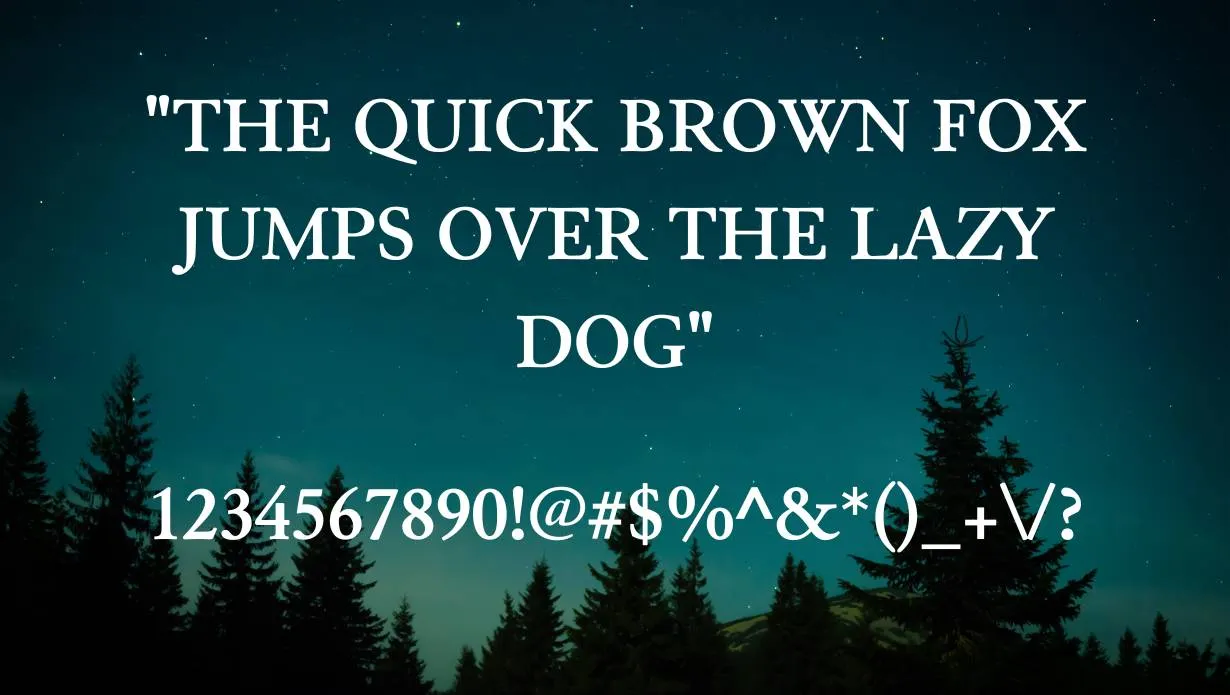
Junicode Font is a classic and legible typeface suitable for various design applications.
Its clean lines and timeless style make it a practical choice for branding, editorial design, and projects where clarity and approachability are key.
| Name | Junicode Font |
| Designer | Peter S. Baker |
Junicode Font Family